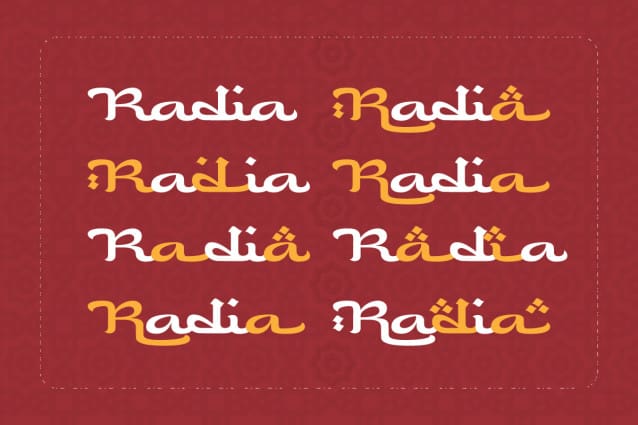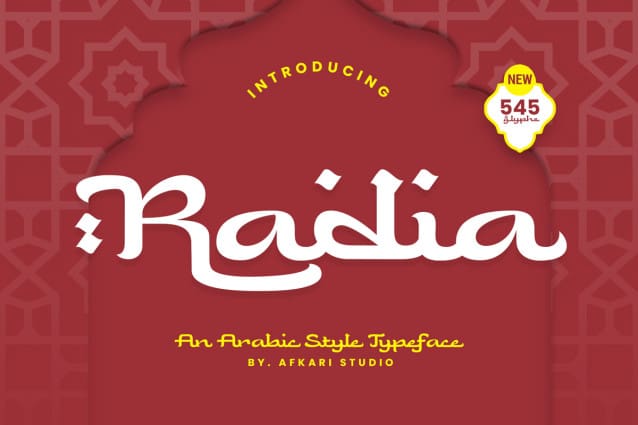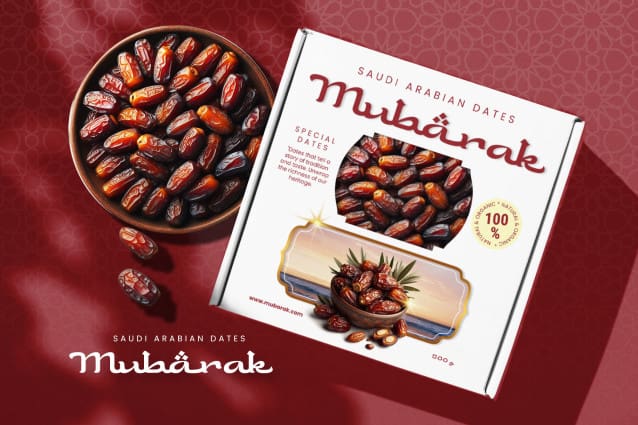
Radia Arabic Font
Radia Arabic Font a captivating Arabic-style typeface that embodies the essence of Ramadan and Islamic design. Immerse your projects in the rich cultural heritage of Arabic calligraphy with this exquisite font. Radia is meticulously crafted to infuse every text with an authentic Arabic feel, making it an ideal choice for graphic design projects centered around Islamic or Arabic themes.
Designed with Latin characters, Radia ensures international readability, allowing your message to transcend linguistic barriers. Whether you’re working on branding, product packaging, quotes, flyers, posters, logotypes, apparel, or even movie titles, Radia effortlessly enhances the visual appeal of your creations.
Radia – An Arabic Style Typeface